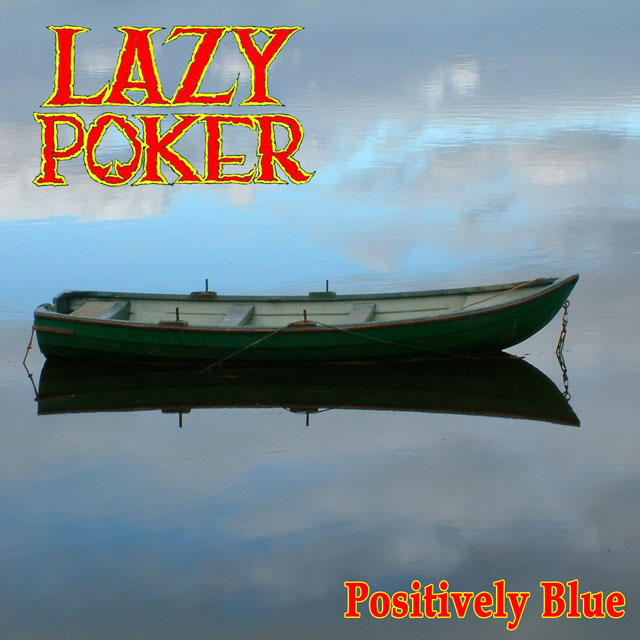
What is the font at the top of this image, the one used for "Lazy Poker"?
That's gotta be Helvetica or Chicago.
I hope you're having a larf ...
I have a suspicion, given the rather -- ahem -- rough and ready appearance of the letters, with inconsistent weights and spacing, that this may have been 'hand drawn' in something like Illustrator.
You could replicate something like it with any serif font that has a 'distressed' outline - Papyrus ships with most Macs, and Caslon Antique has a similarly battered appearance, although neither of the actual faces closely resembles this one.
Whatever you use, you'd still need to use Freehand or Illustrator to add the outline/inline to the basic text, and to punch out the spade shape from the 'O' ...
Latin & Latin wide have the points you need Then find a webding of the spade.
outline it & The type & Combine.